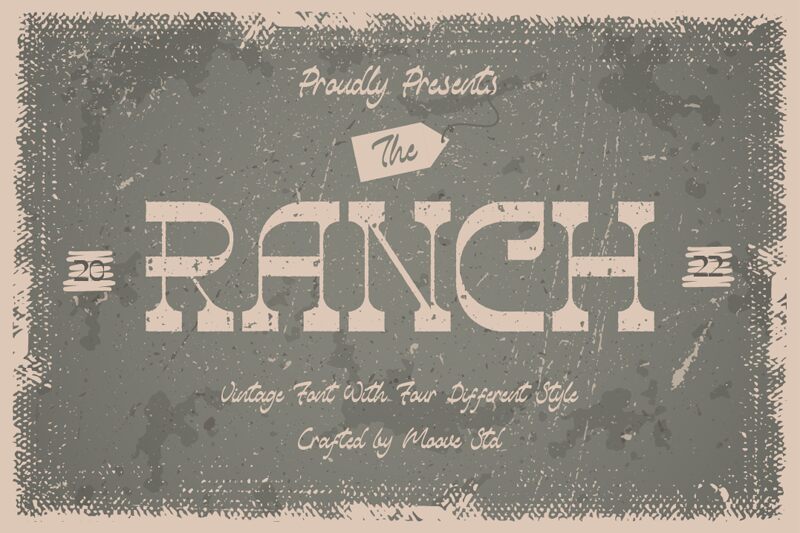
The Ranch
The Ranch is a captivating display font crafted by Moove Studio, radiating a distinct Western flair. With its rugged, hand-drawn aesthetic, this font exudes a raw, rustic charm that immediately captures the viewer's attention. Smooth curves and bold, angular strokes come together to create a striking visual impact, evoking the spirit of the American frontier.
The Ranch's versatility makes it a compelling choice for a wide range of design projects. Its bold, attention-grabbing presence lends itself well to eye-catching headlines, impactful branding, and dynamic poster designs. The font's unique character also shines in product packaging, album covers, and other applications where a bold, authentic Western style is desired.